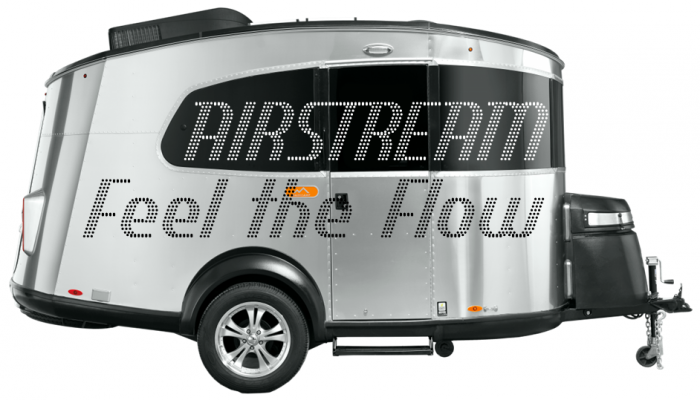
Congratulations on the TP, it does look streamlined with those rounded corners on the right side leaning into the wind :) The sample shows the font's quality.
thanks for the TP, mr. meek. thanks, aeolien. yes, the enhanced nudging is really a game changer here. this one is a fairly old font. it was fun to go back and build it out further, although i know it is not complete. oh, well :)
Congratulations on the TP, it does look streamlined with those rounded corners on the right side leaning into the wind :) The sample shows the font's quality.
Some fabulous nudging, patience and artistic vision has gone into this ...
thanks for the TP, mr. meek. thanks, aeolien. yes, the enhanced nudging is really a game changer here. this one is a fairly old font. it was fun to go back and build it out further, although i know it is not complete. oh, well :)
Sorry to say old pal, but i dont see the aestethic aspect in overlapping those points
Congrats on the TP. It's nice to see a fresh new italic font